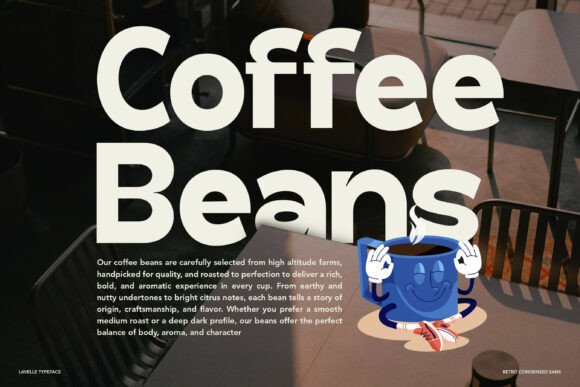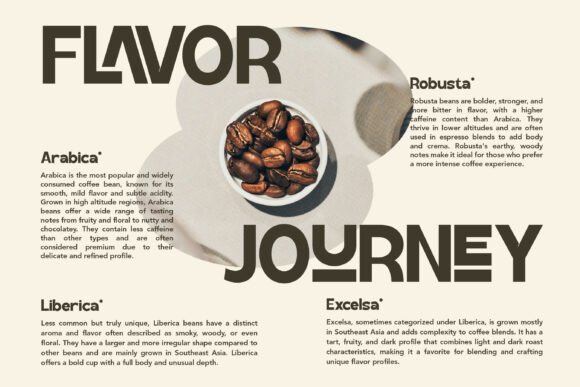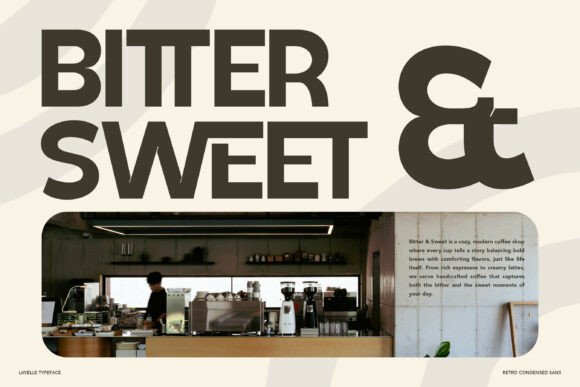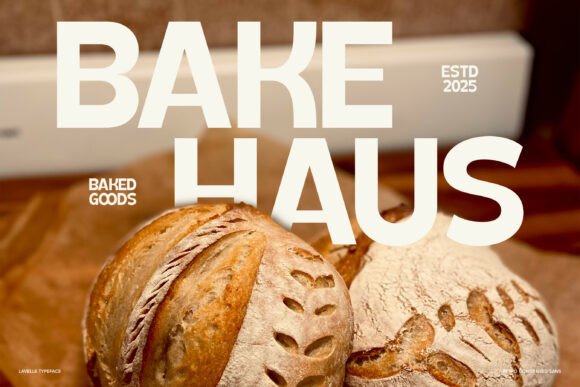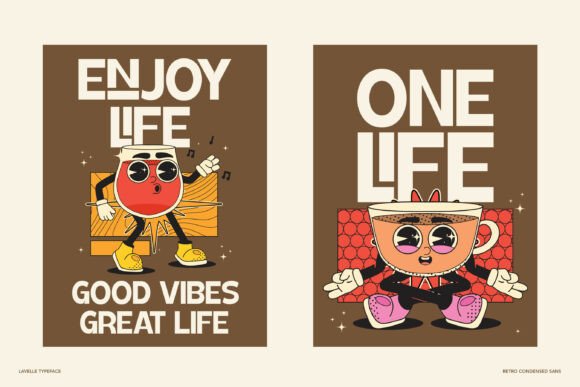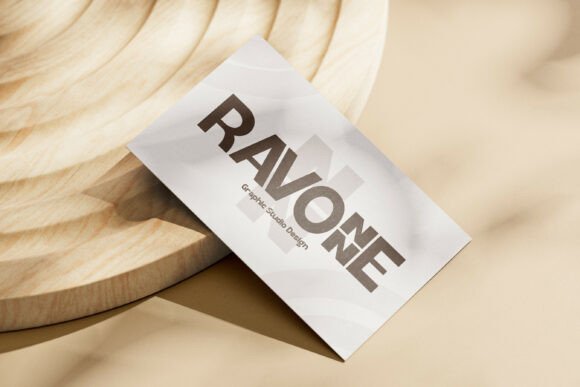
Introduction to Lavelle Font
Lavelle is a bold retro condensed sans serif typeface that blends vintage charm with modern simplicity.
Designed with strong geometric shapes, clean lines, and sharp edges, Lavelle captures the spirit of retro design while staying versatile for contemporary projects Perfect for logos, posters, headlines, and branding, Lavelle adds a striking presence and timeless character to any design.